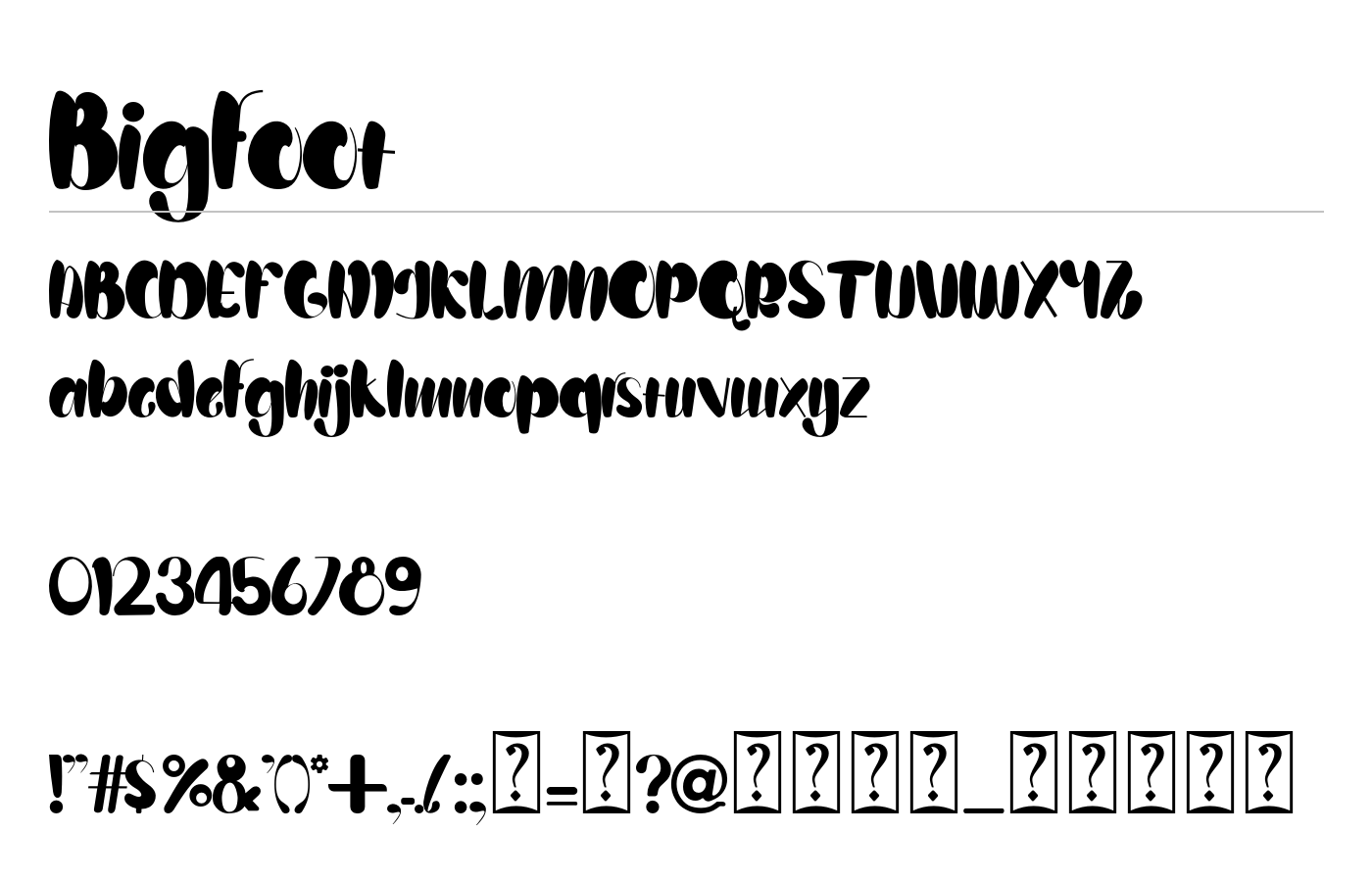
Bigfoot Font is a bold, playful script typeface with thick, rounded strokes and a lively, hand-drawn feel. Its unique, whimsical letterforms with irregular curves and lively details make it perfect for creative branding, fun headlines, and eye-catching posters where a friendly and energetic personality is desired. This font works best in designs that want to convey a casual, approachable vibe with a strong visual impact.
Bigfoot Font
About Bigfoot Font
| Font family | Bigfoot Font |
| Designer | Lettersiro 2018 |